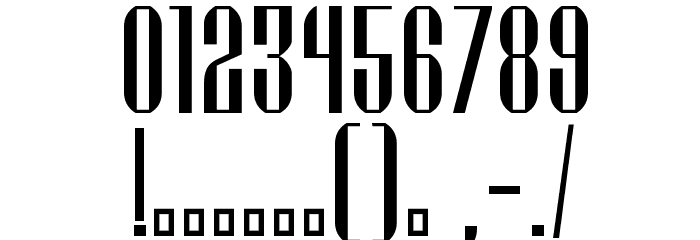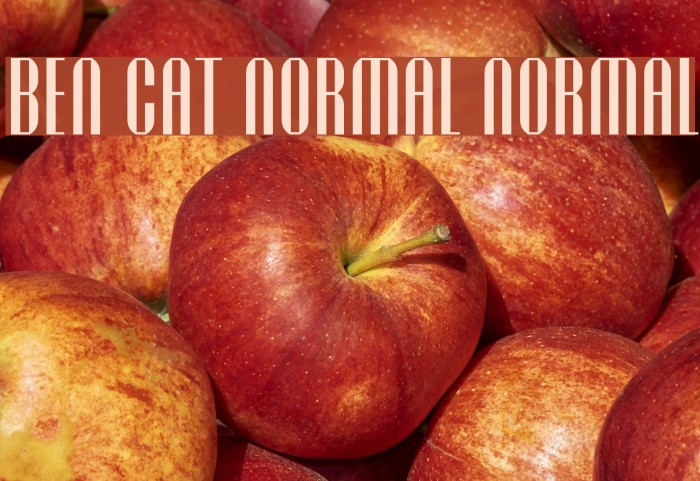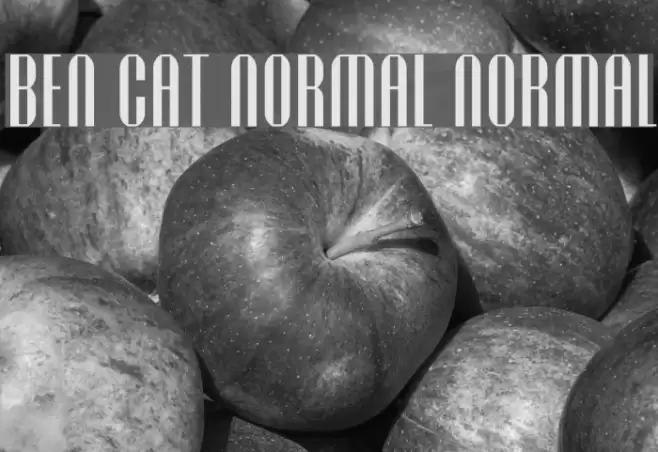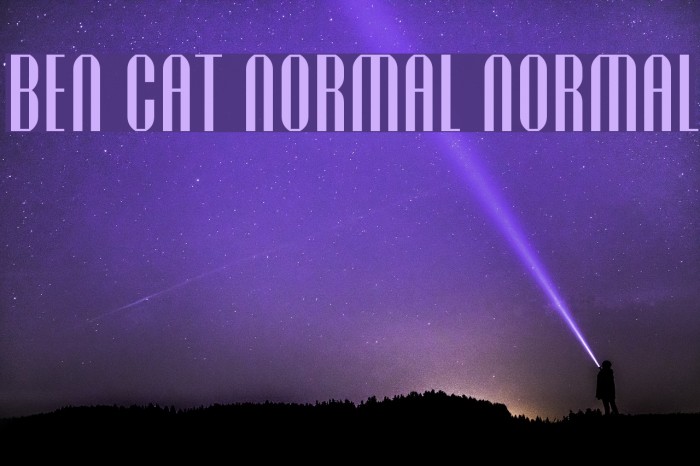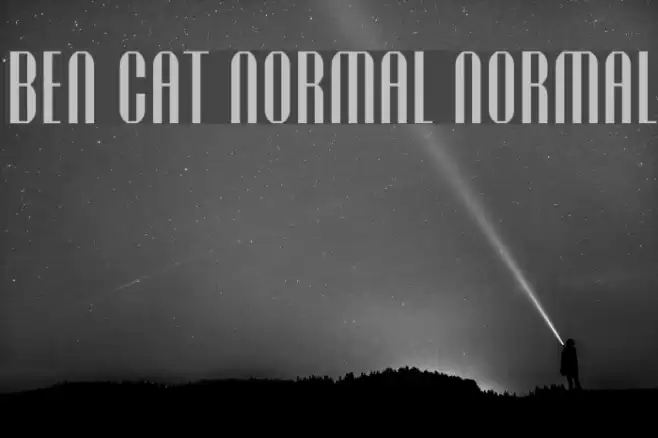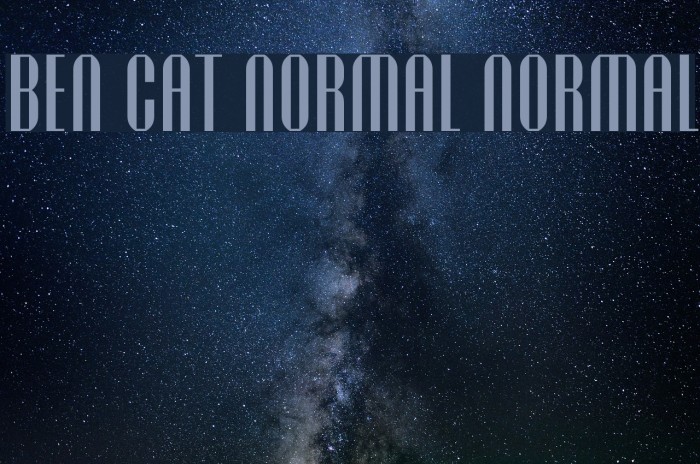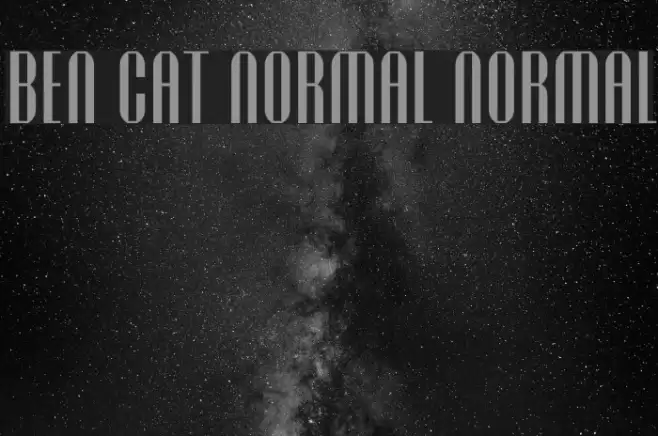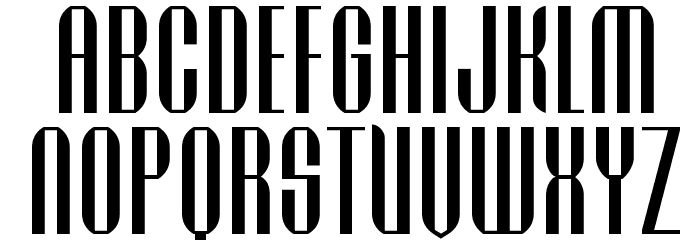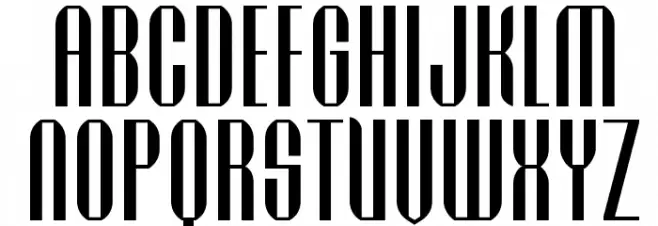
Ben Cat Normal Normal Font
Ben Cat Normal Normal Description
This font features a bold and striking design with tall, narrow characters that create a strong visual impact. The uppercase letters are particularly elongated, giving them a towering presence, while the lowercase letters maintain a consistent height that complements the uppercase set. The numerals are equally bold, with a geometric style that enhances readability. The special characters are designed to match the overall aesthetic, ensuring a cohesive look across all text elements. The font's clean lines and modern appearance make it suitable for a variety of design applications.
| Proposed Projects | Ideal for branding, posters, headlines, and any design project requiring a strong visual impact. |